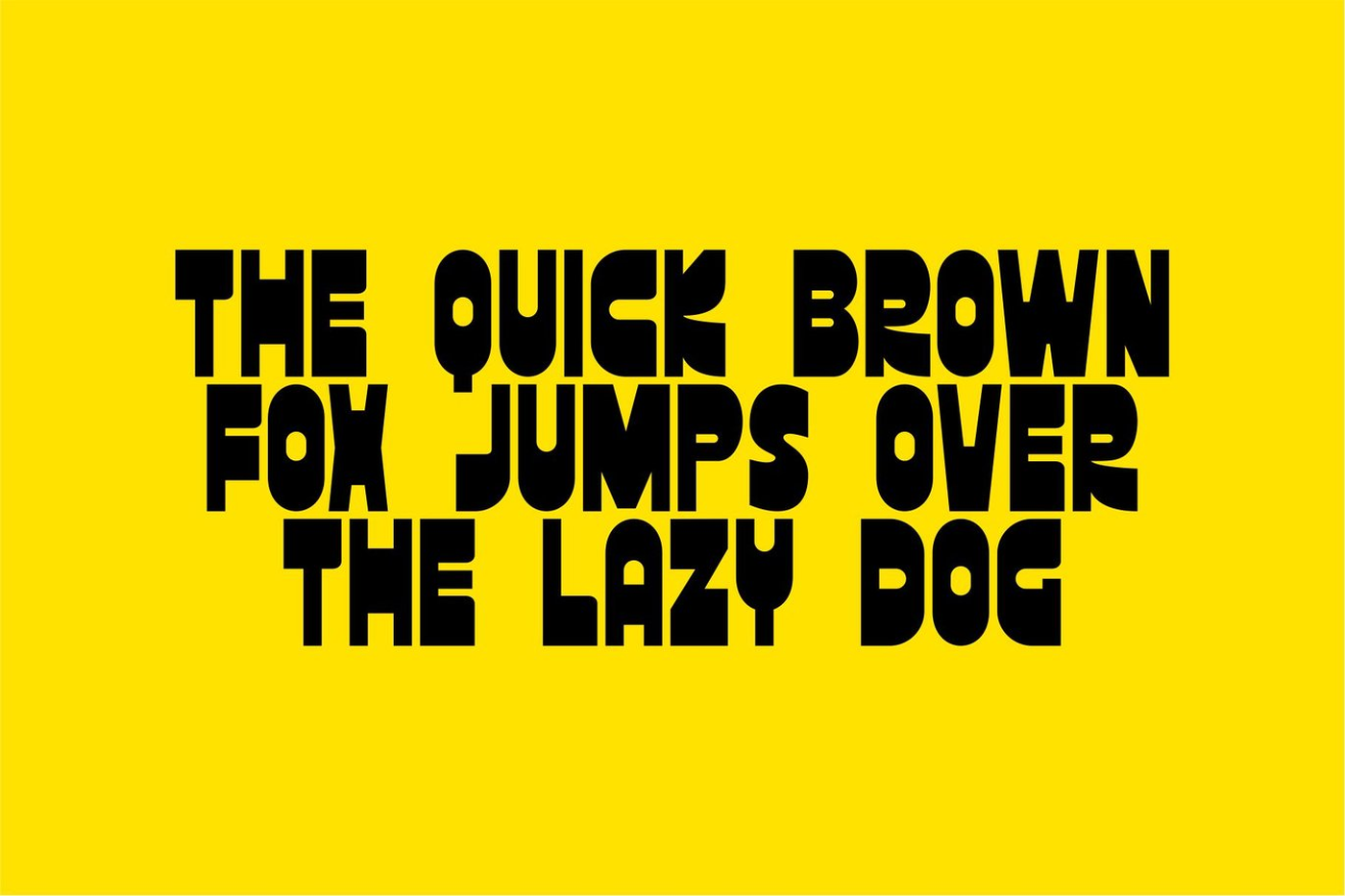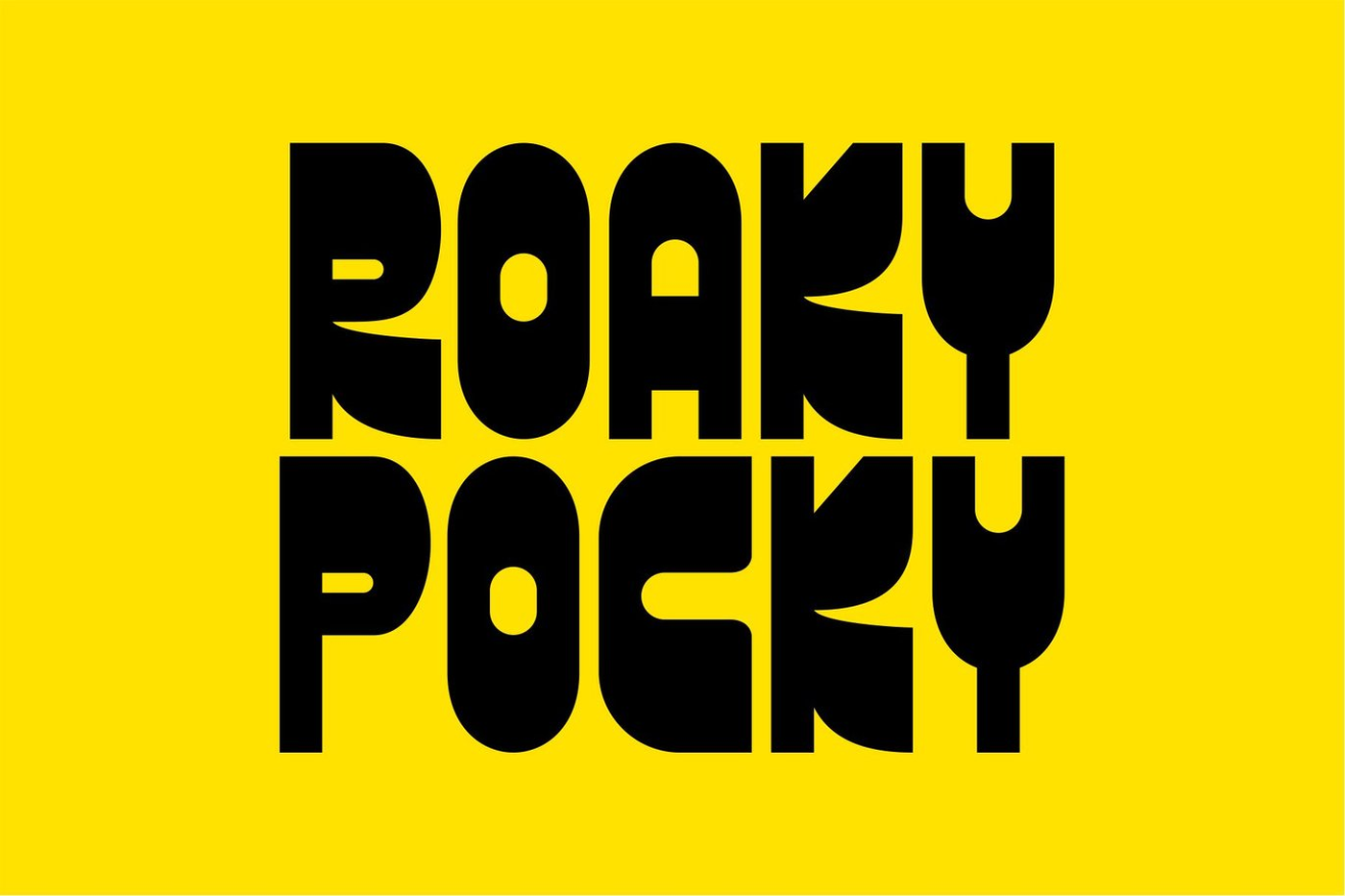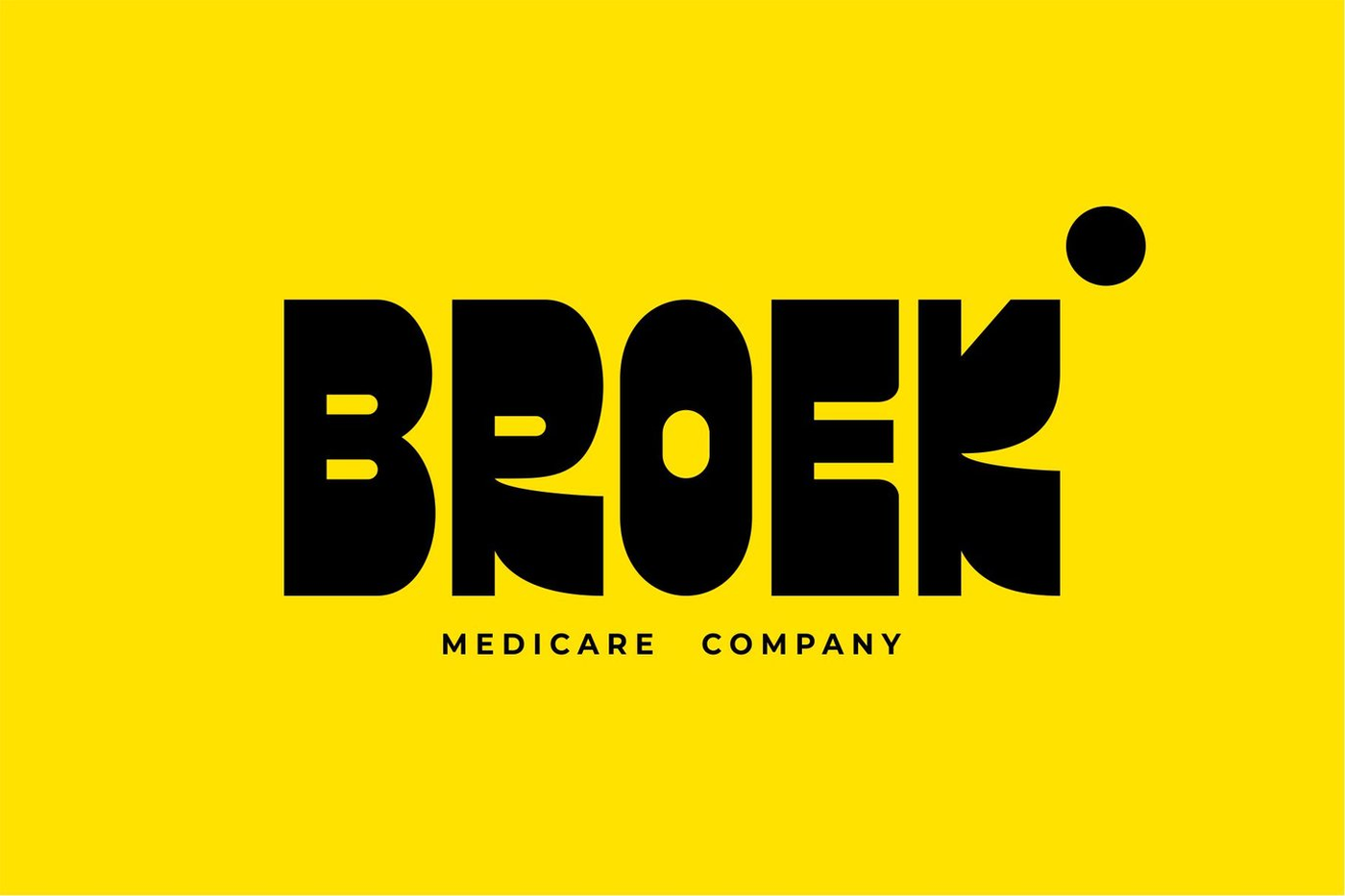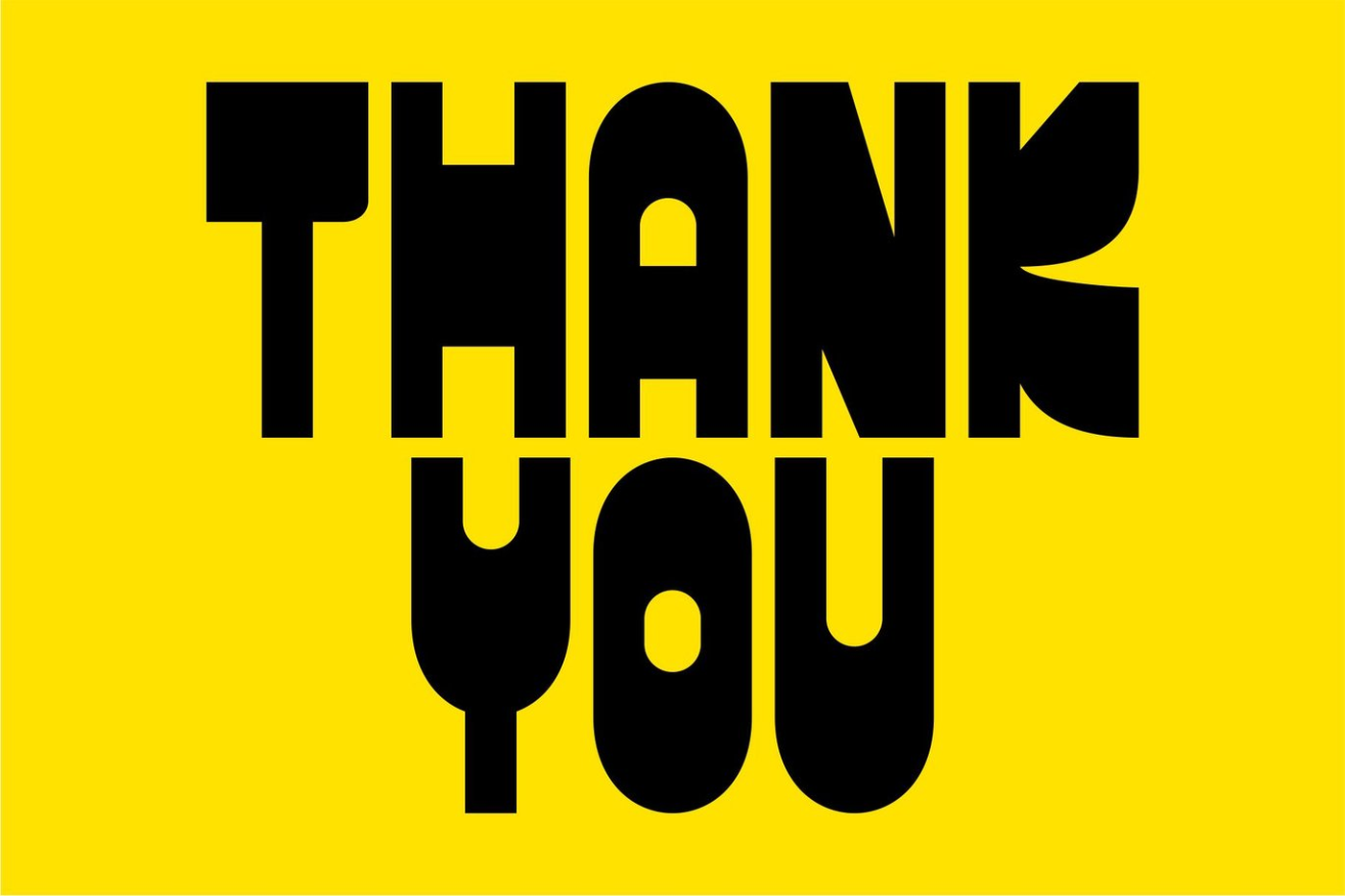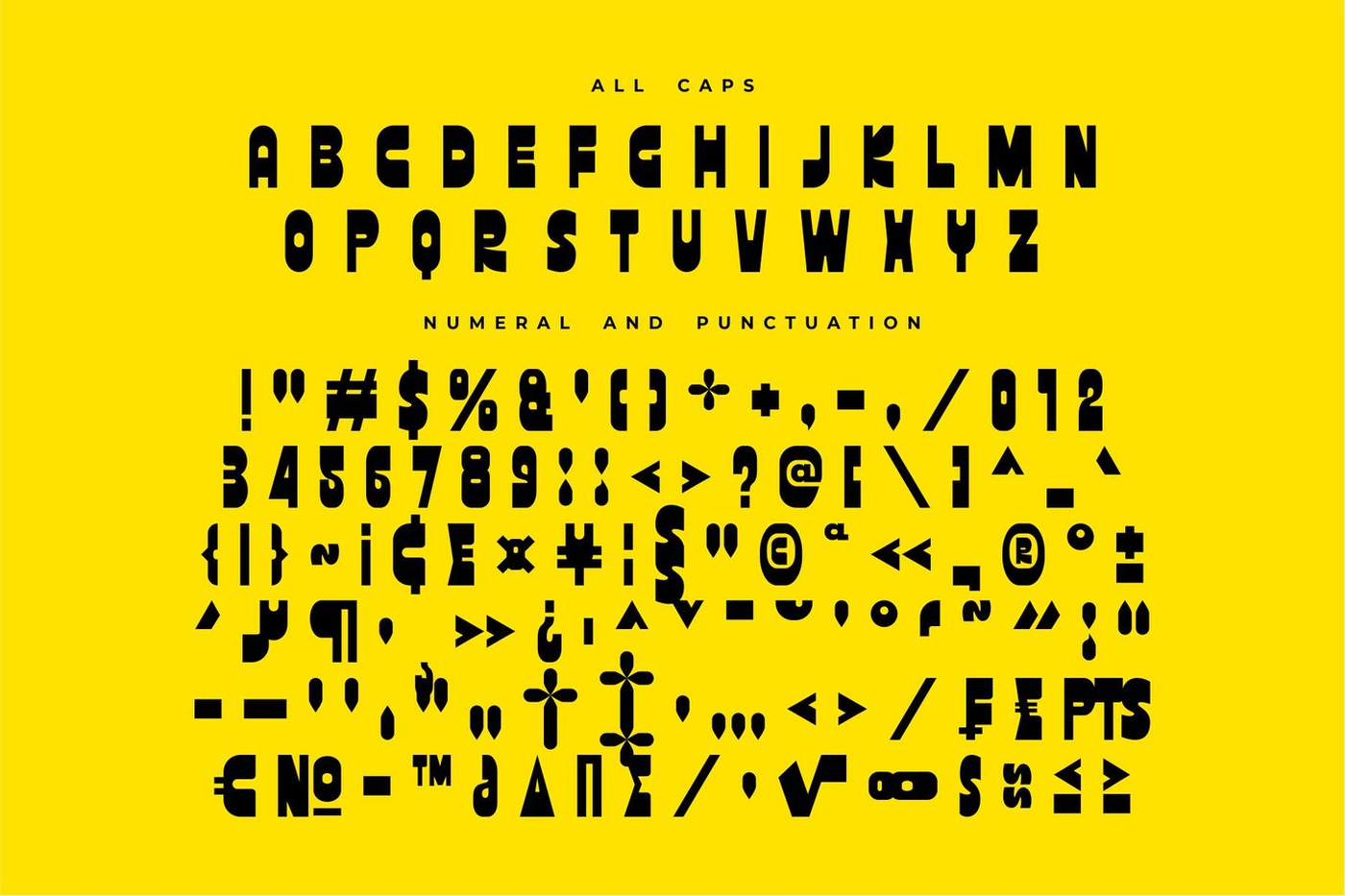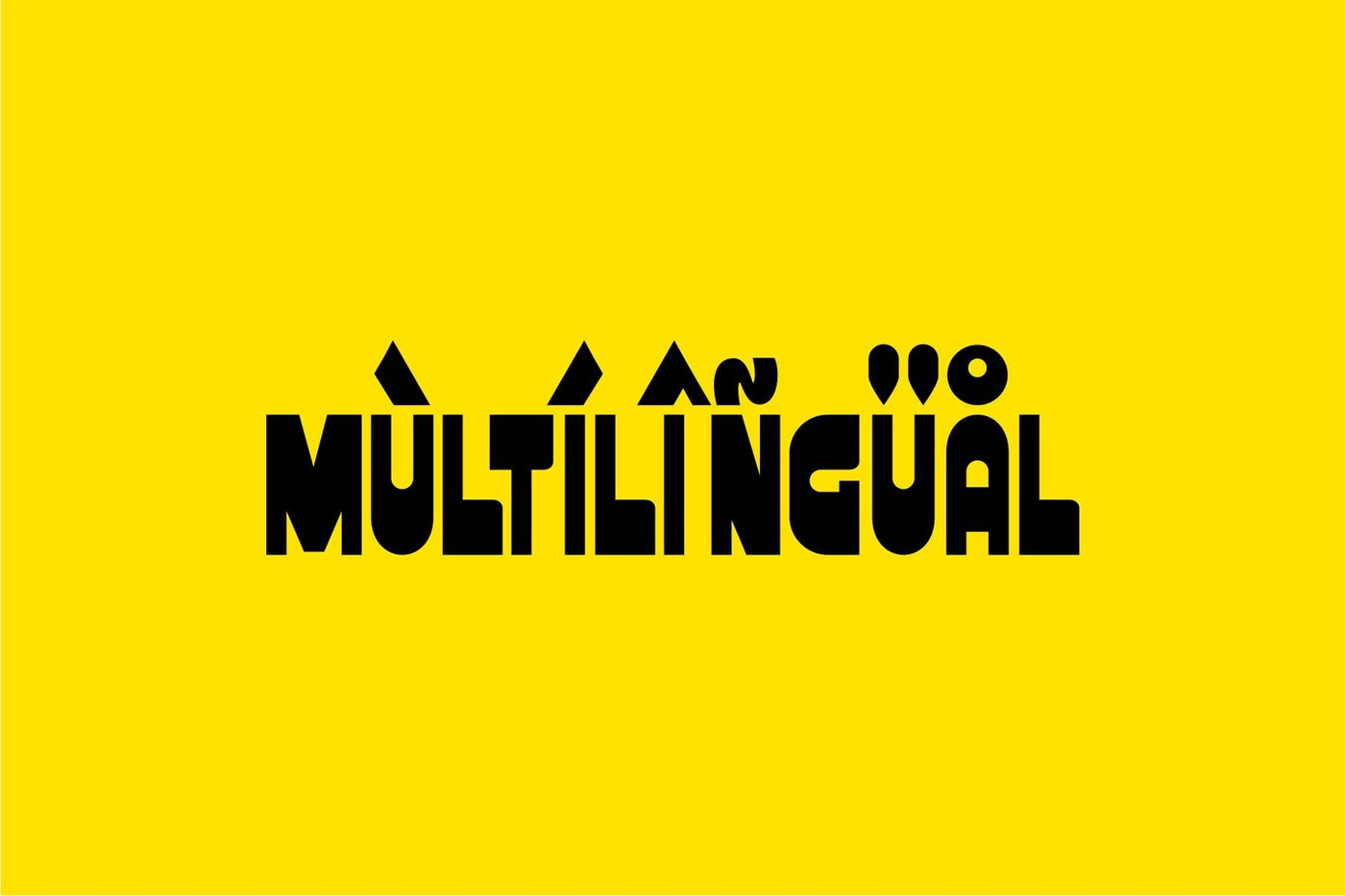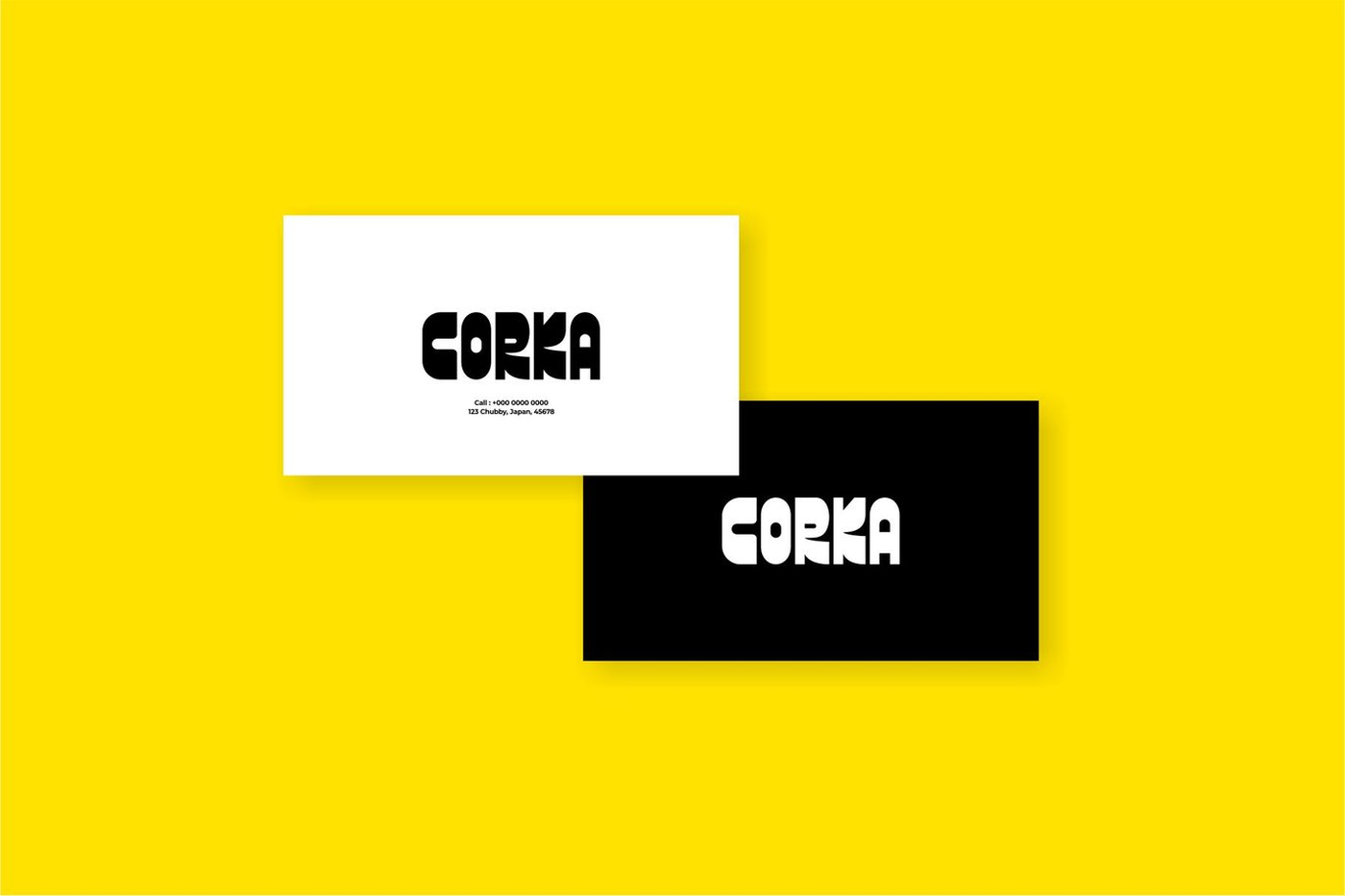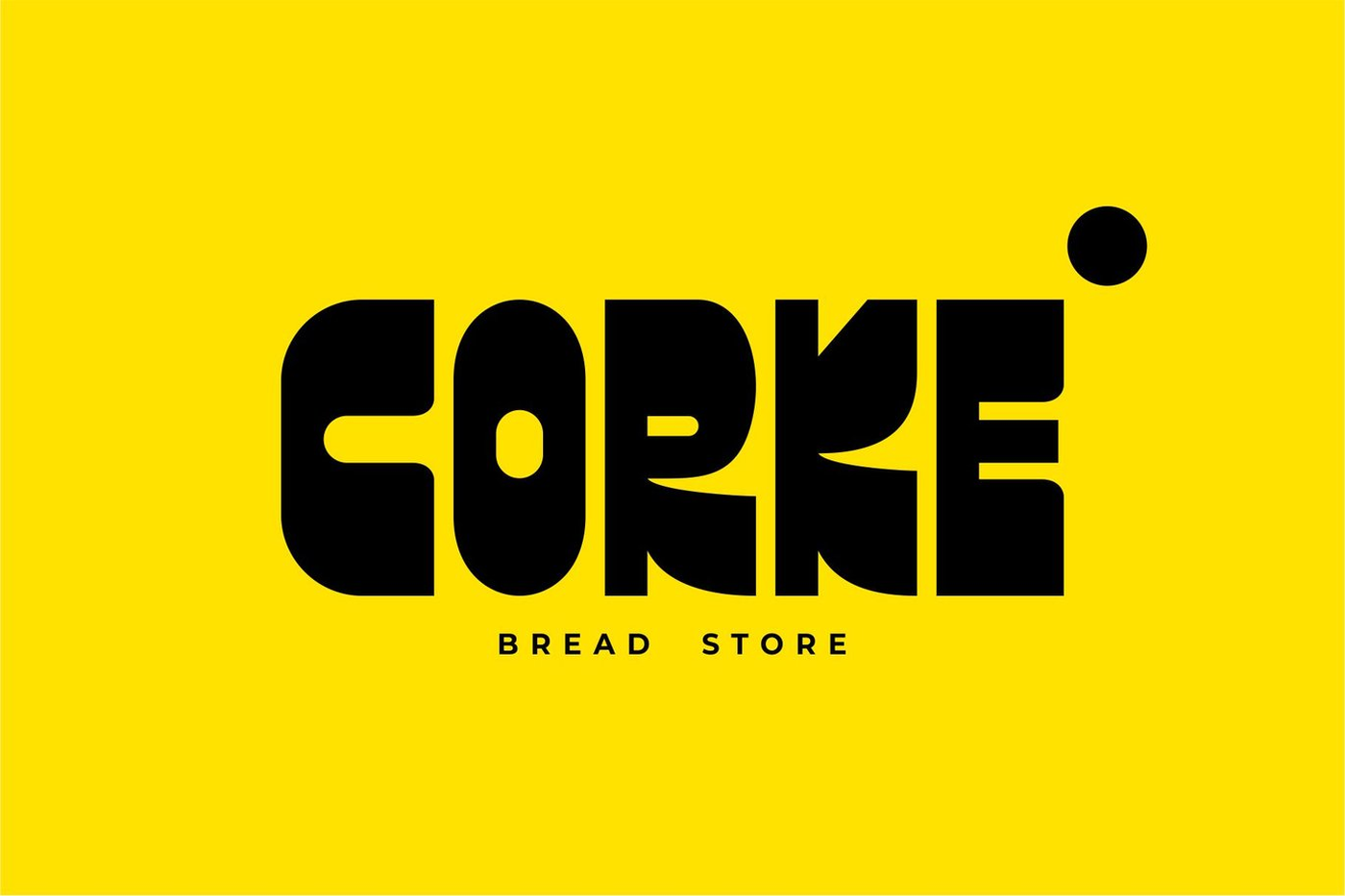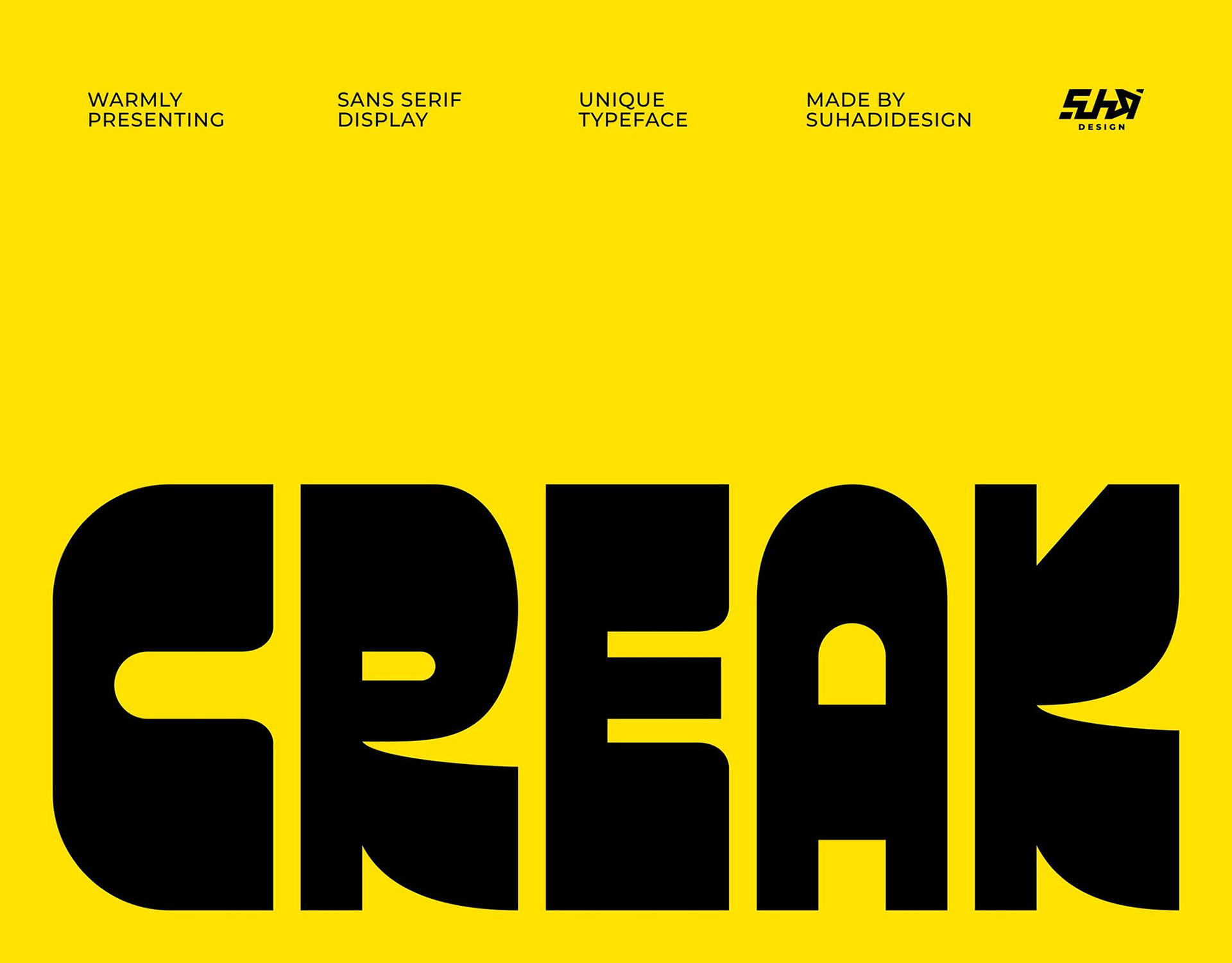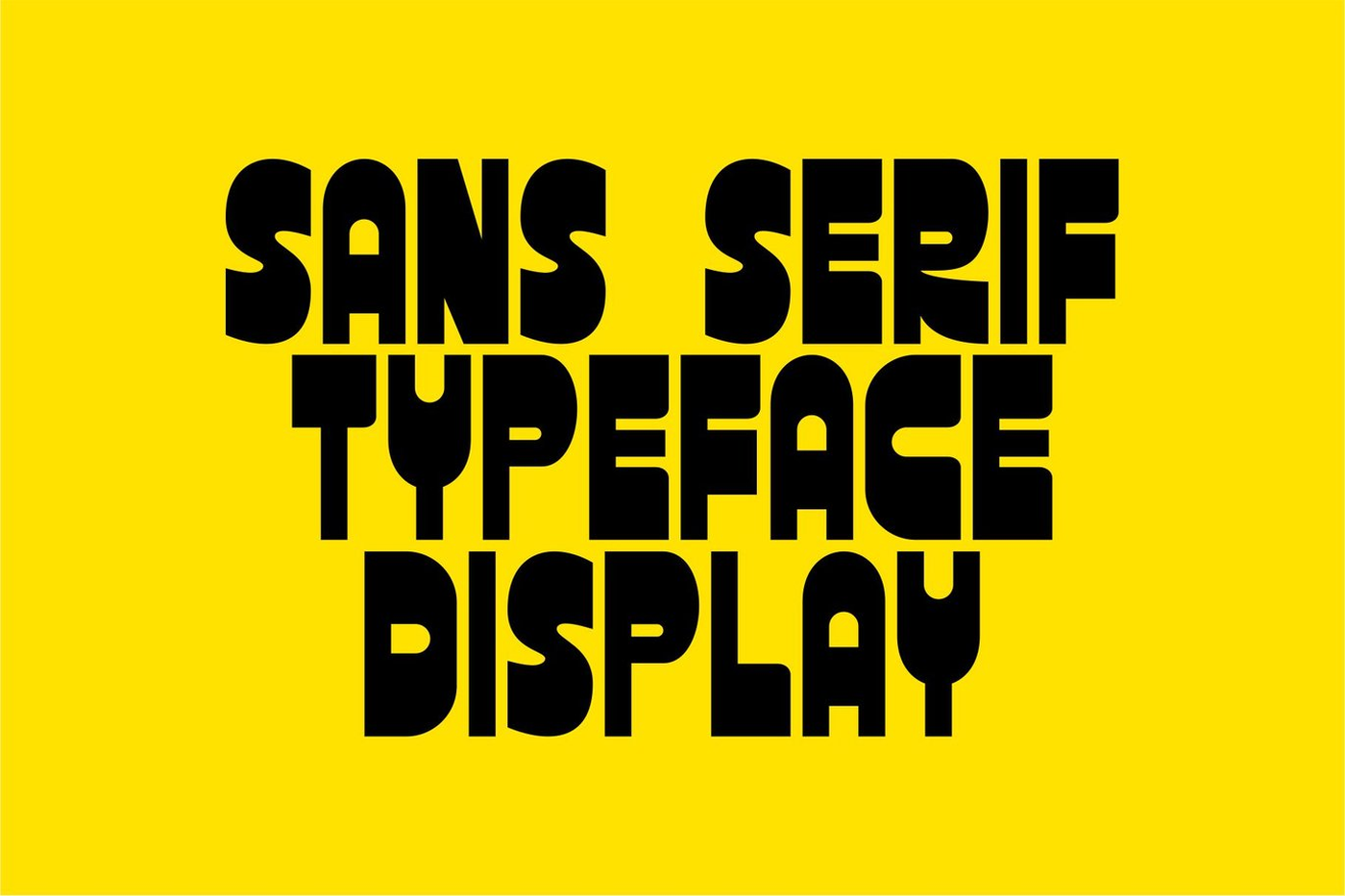
Creak - Sans Serif Display Font
Creak is a sans serif display font, expected to be a market favorite. We've kept this font elegant, classy, ​​modern, stylish, contemporary, and easy to use. Creak is the perfect choice for packaging, logos, labels, brands, magazines, book covers, shopping bags, fashion, posters, banners, bags, branding, fashion, brand names, branding, quotes, and other projects. Creak is here to take your designs to the next level.
Designer: Suhadi Design
Font: Creak